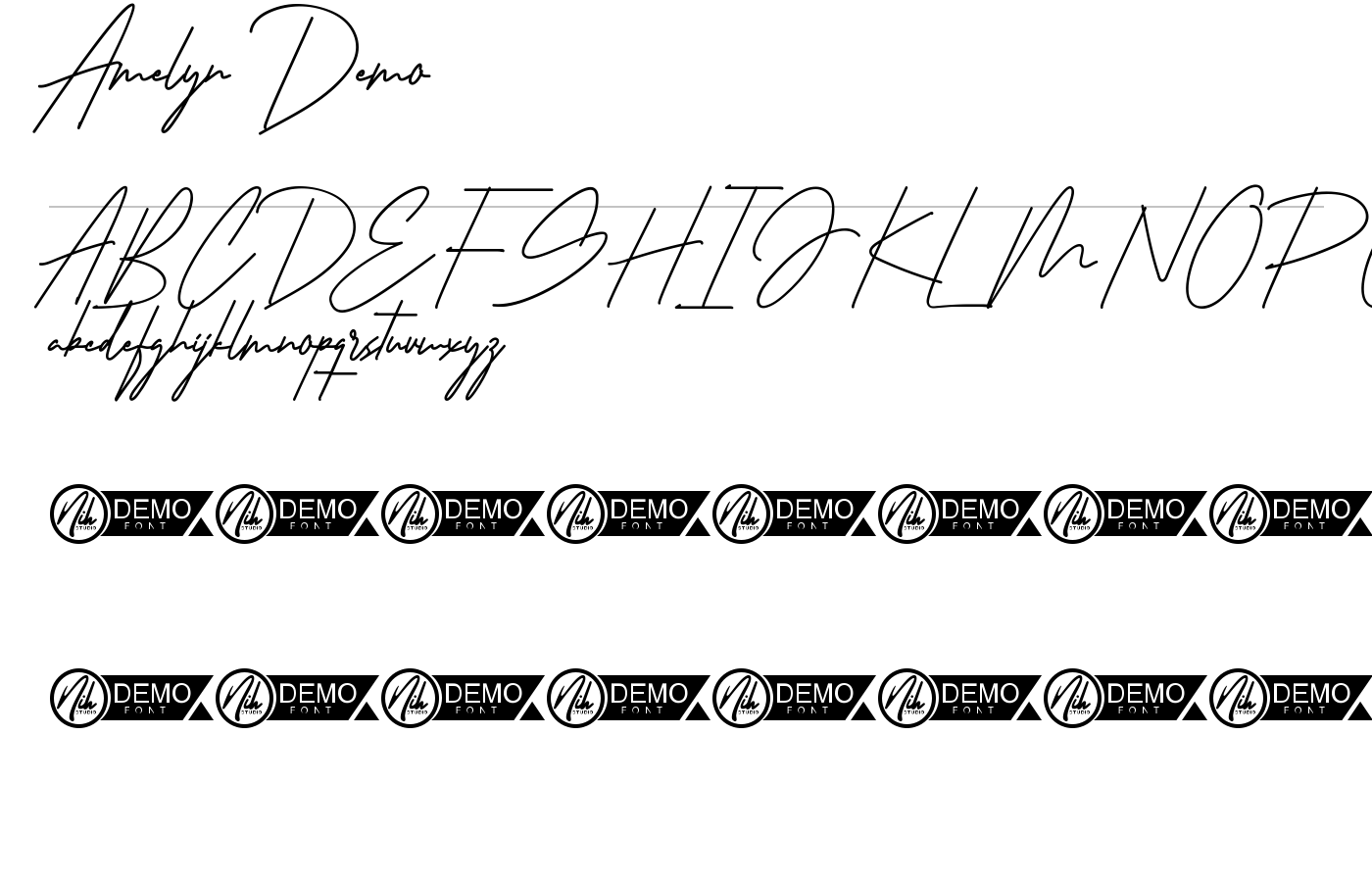
Amelyn Demo is a delicate, modern script font characterized by its thin, flowing strokes and elegant, handwritten style. Its airy, graceful letterforms convey a sense of sophistication and personal touch, making it perfect for luxury branding, invitations, and stylish editorial projects where a refined, intimate feel is desired. This font works well in headlines and decorative text, adding a chic and contemporary flair to any design.
Amelyn Demo Font
About Amelyn Demo Font